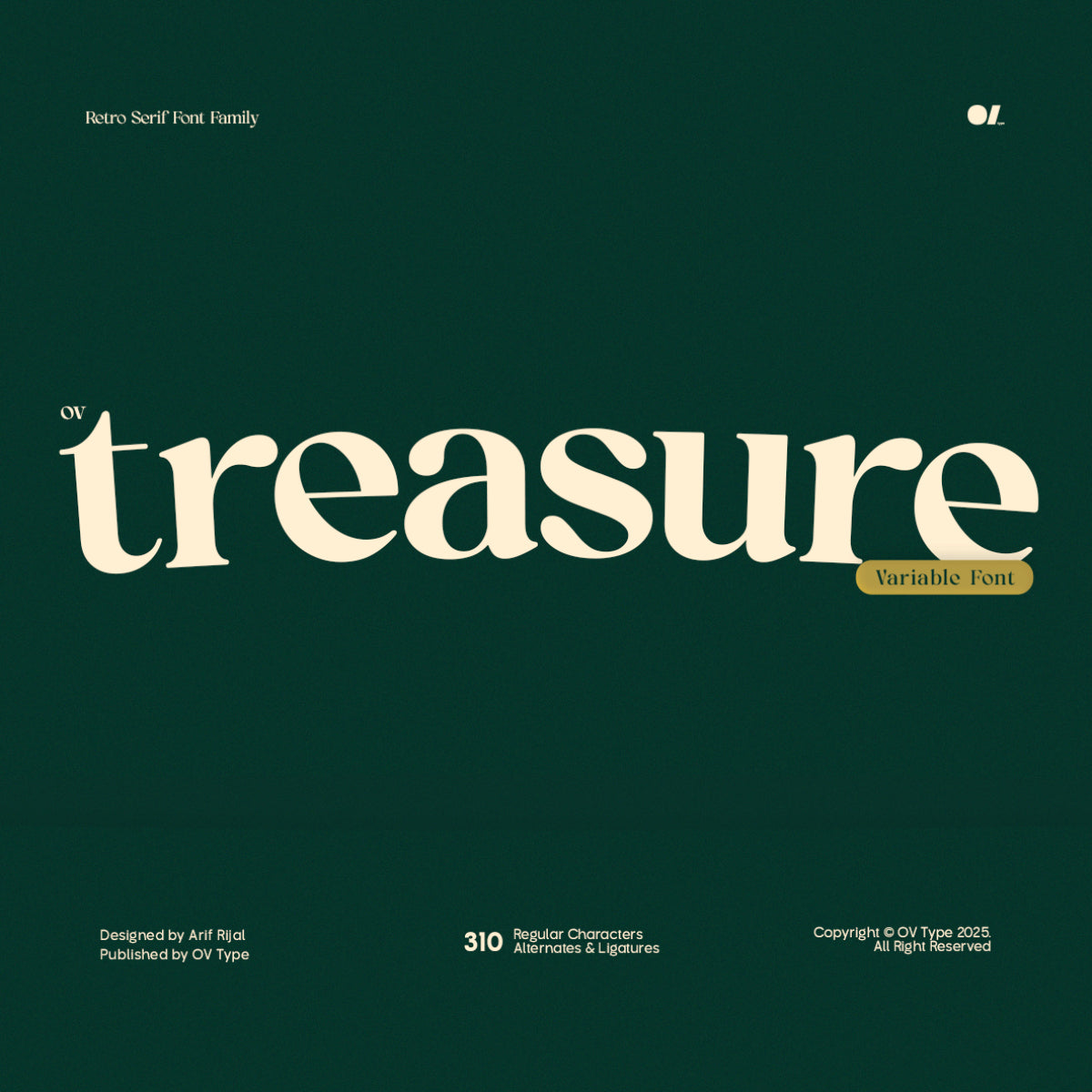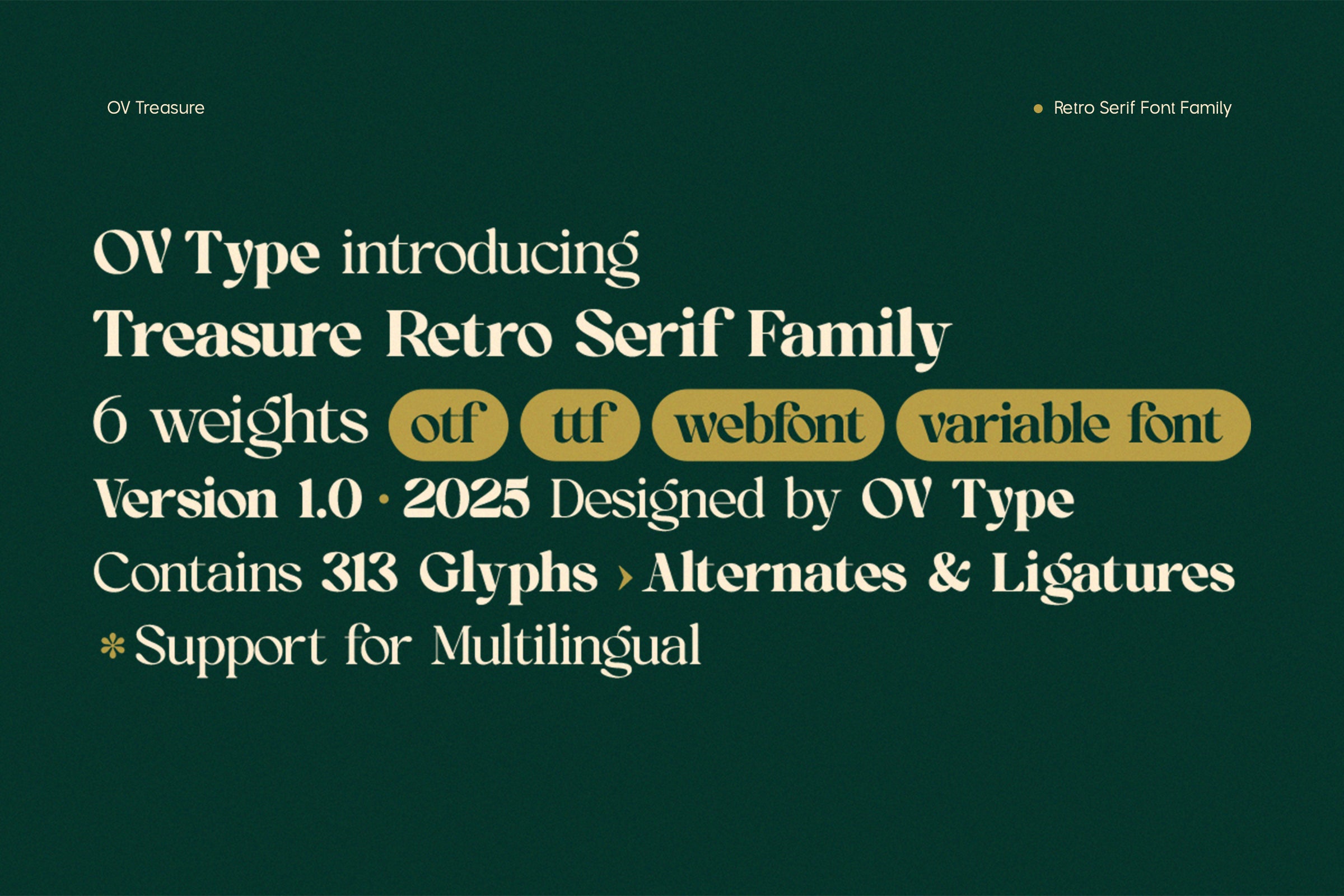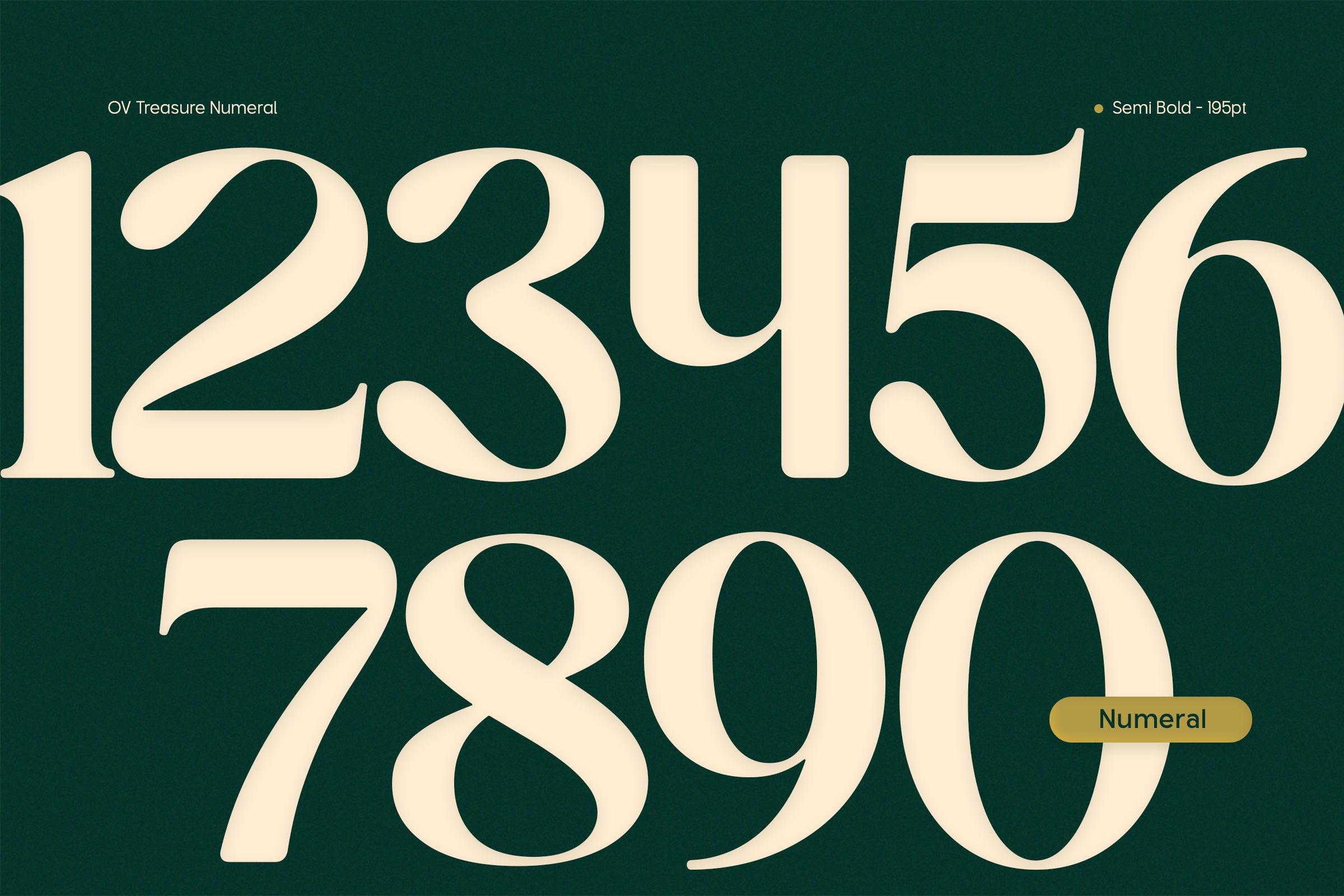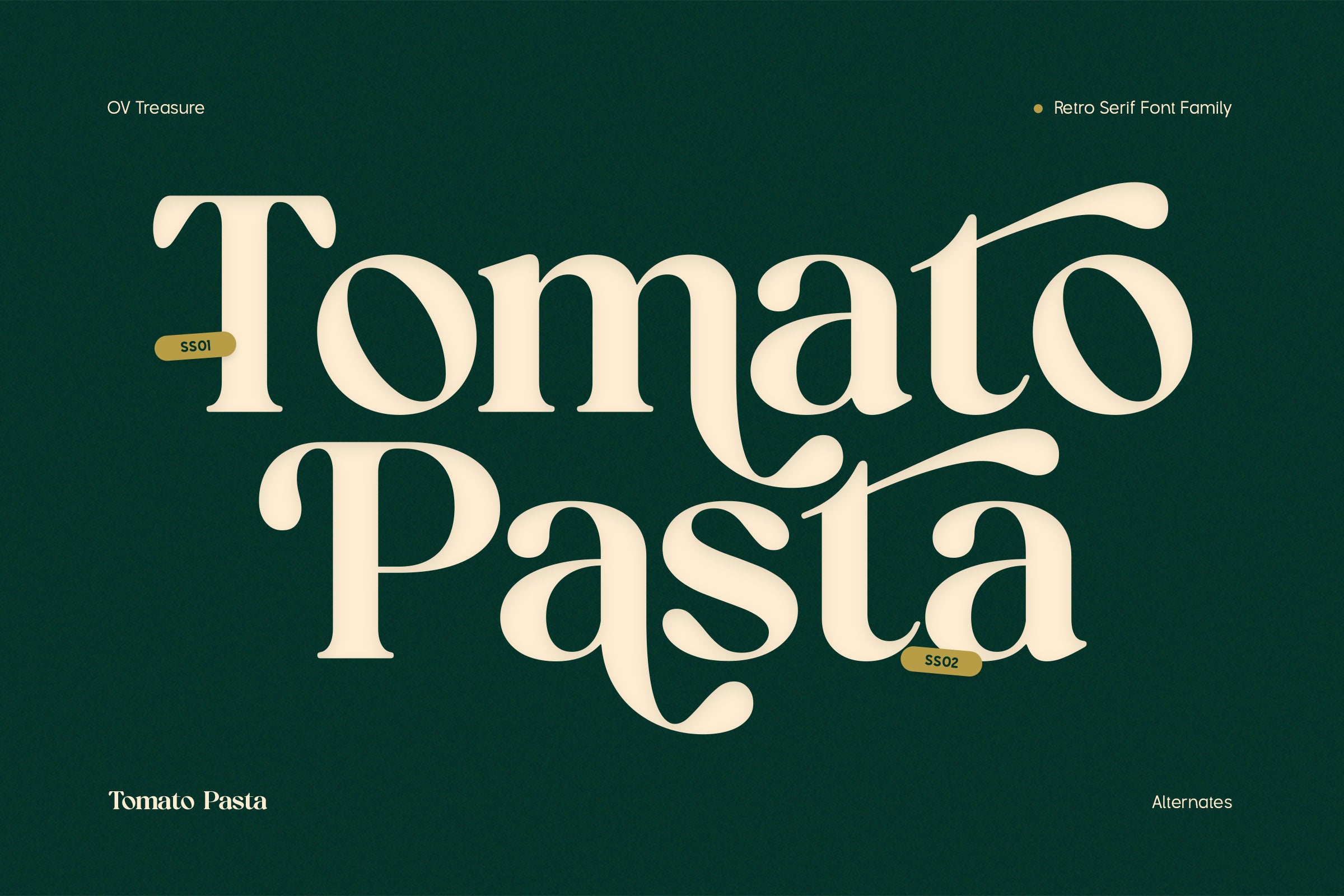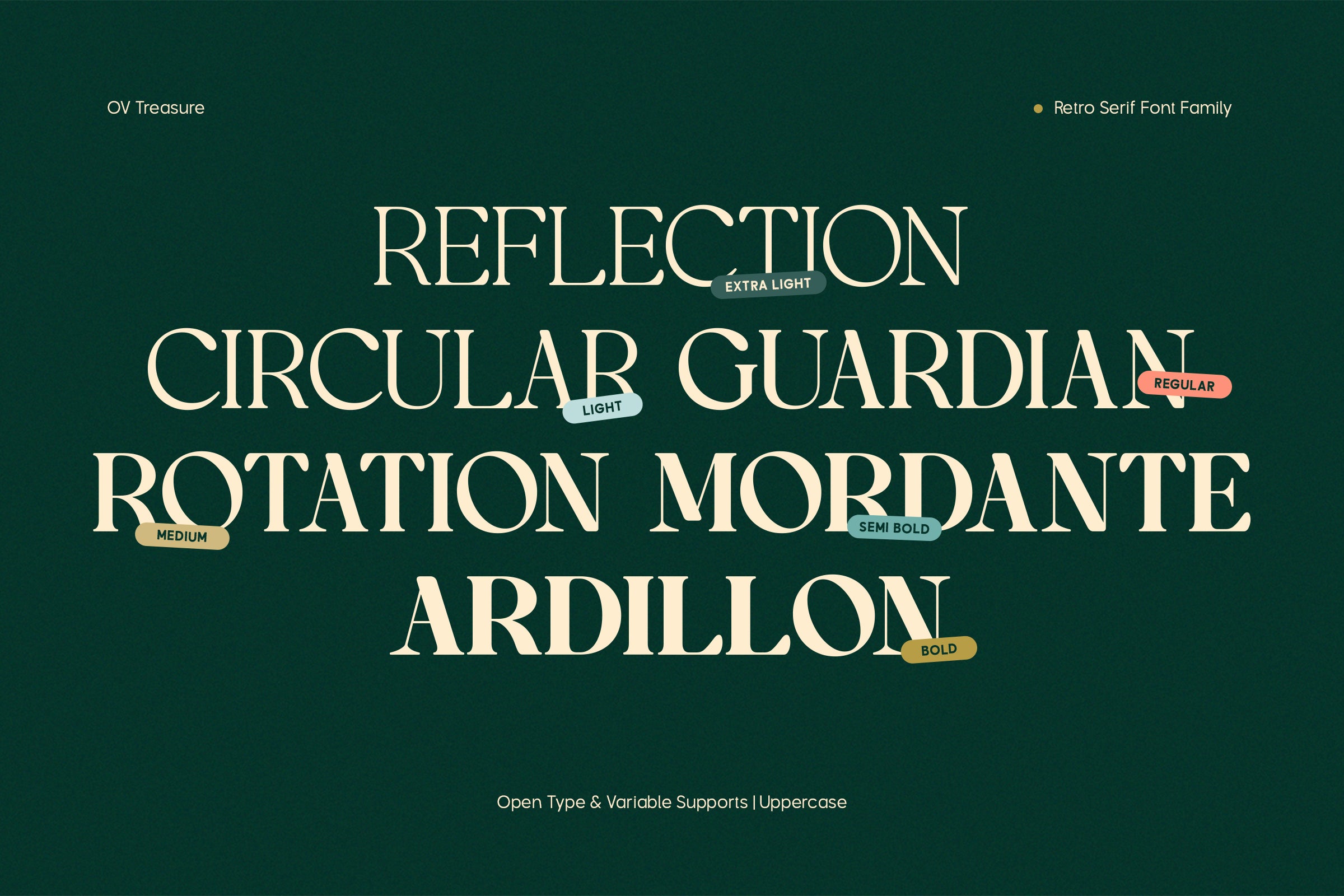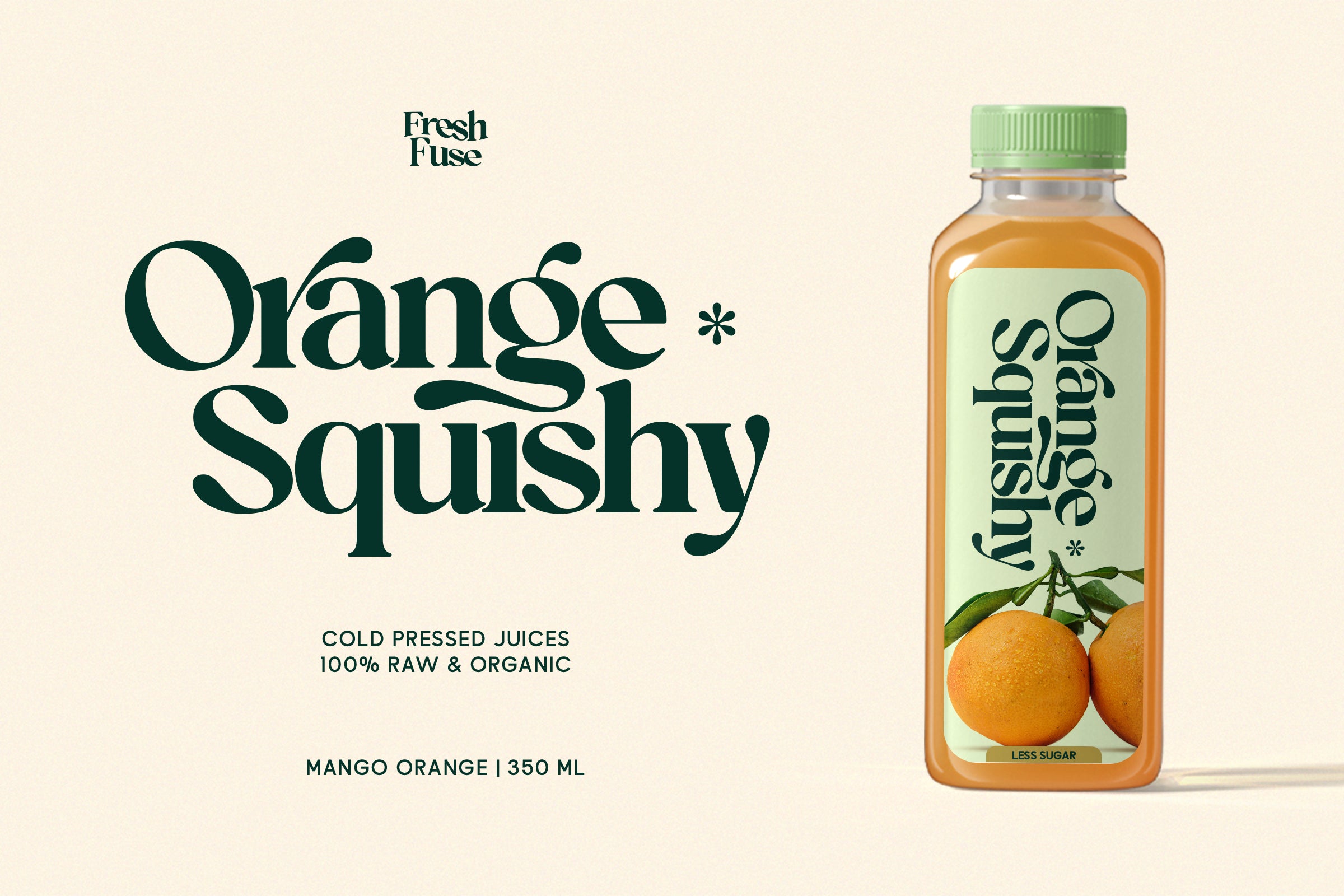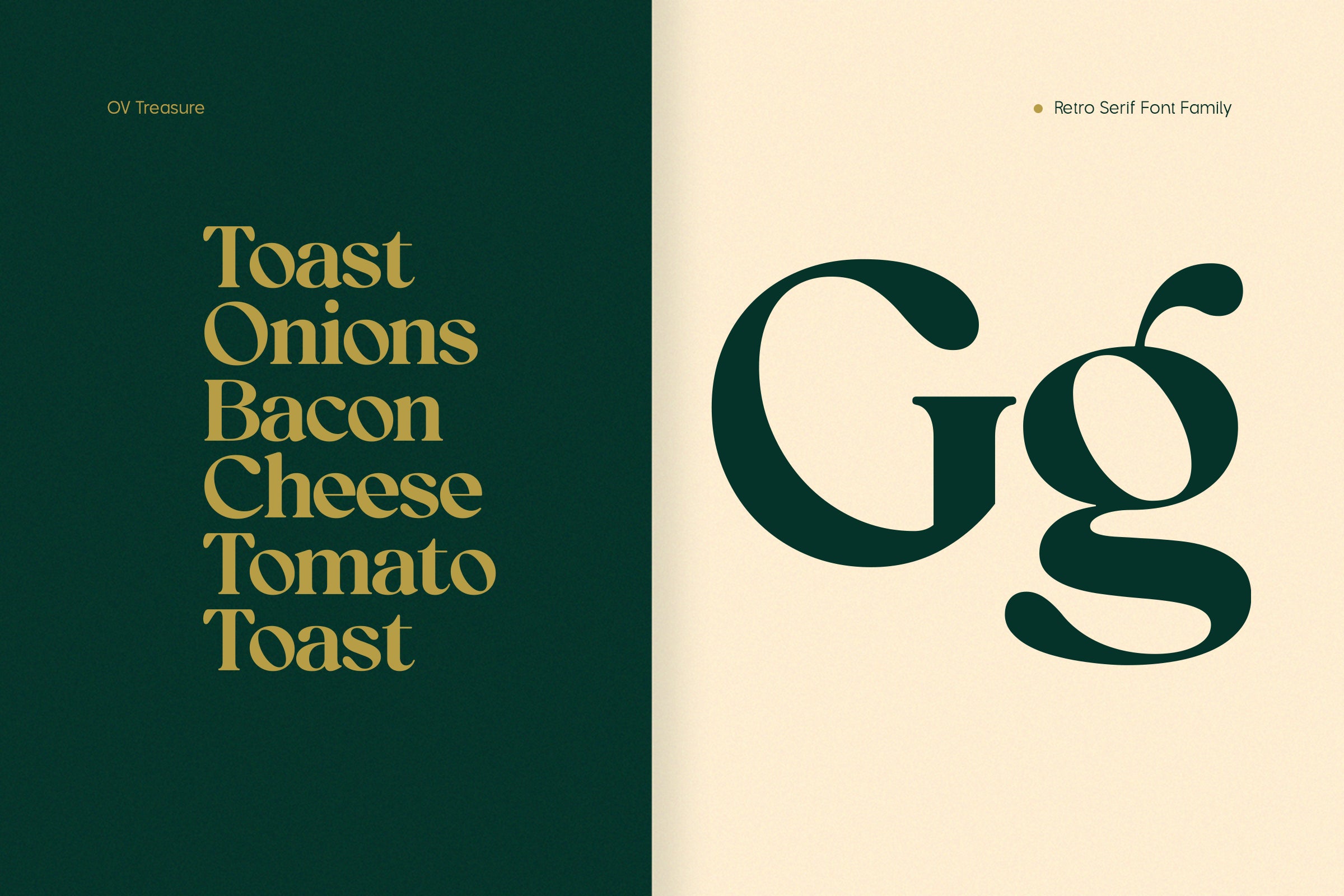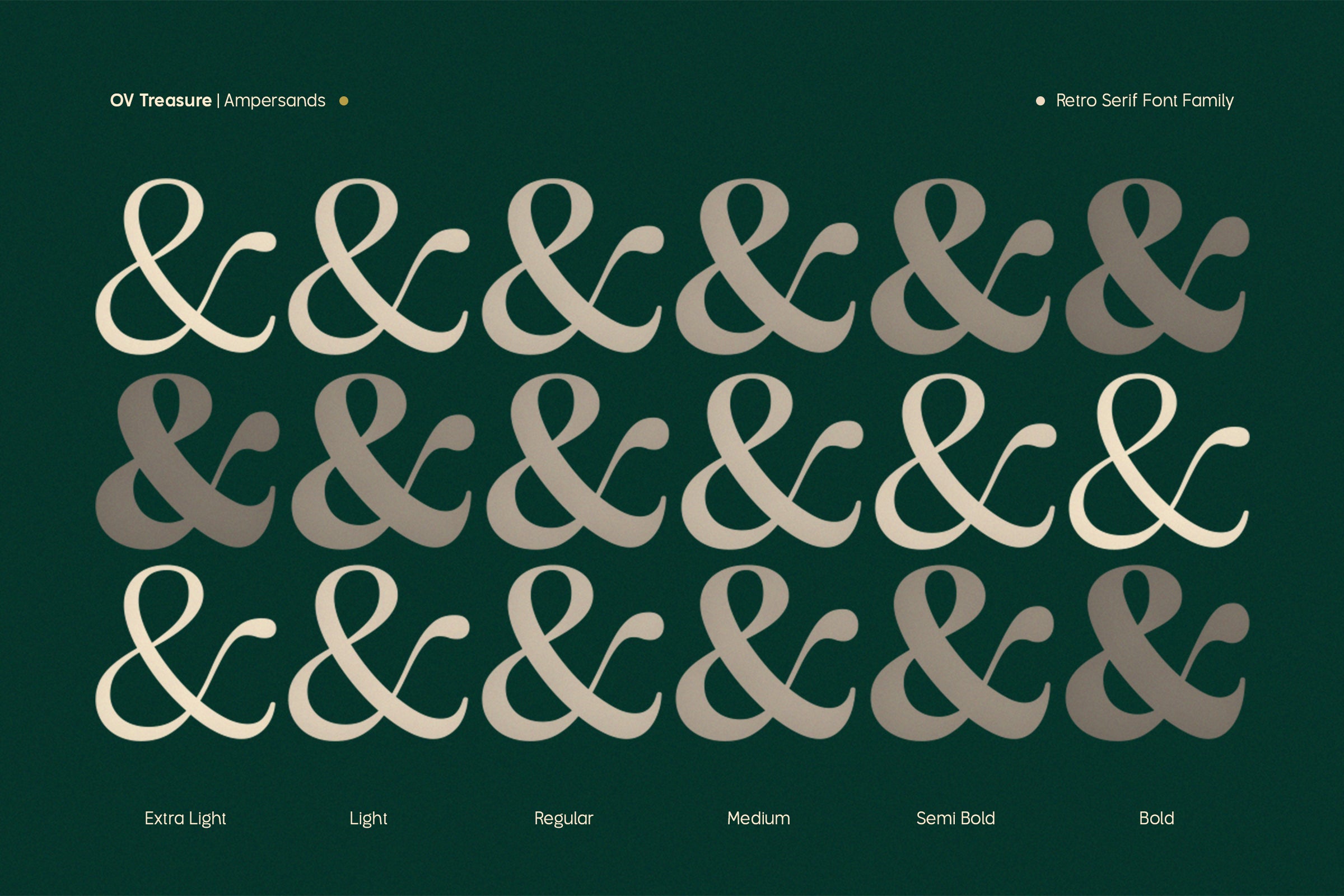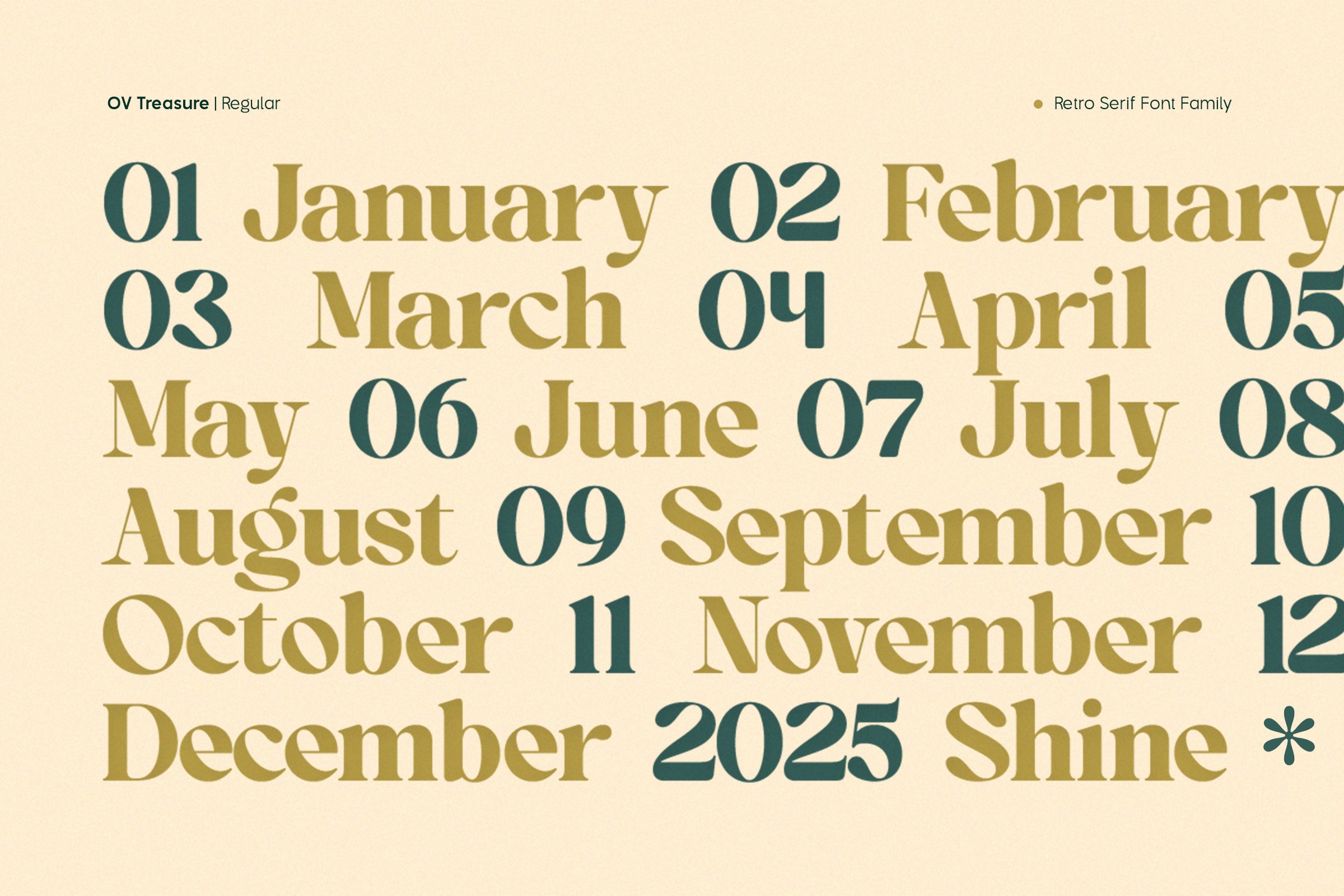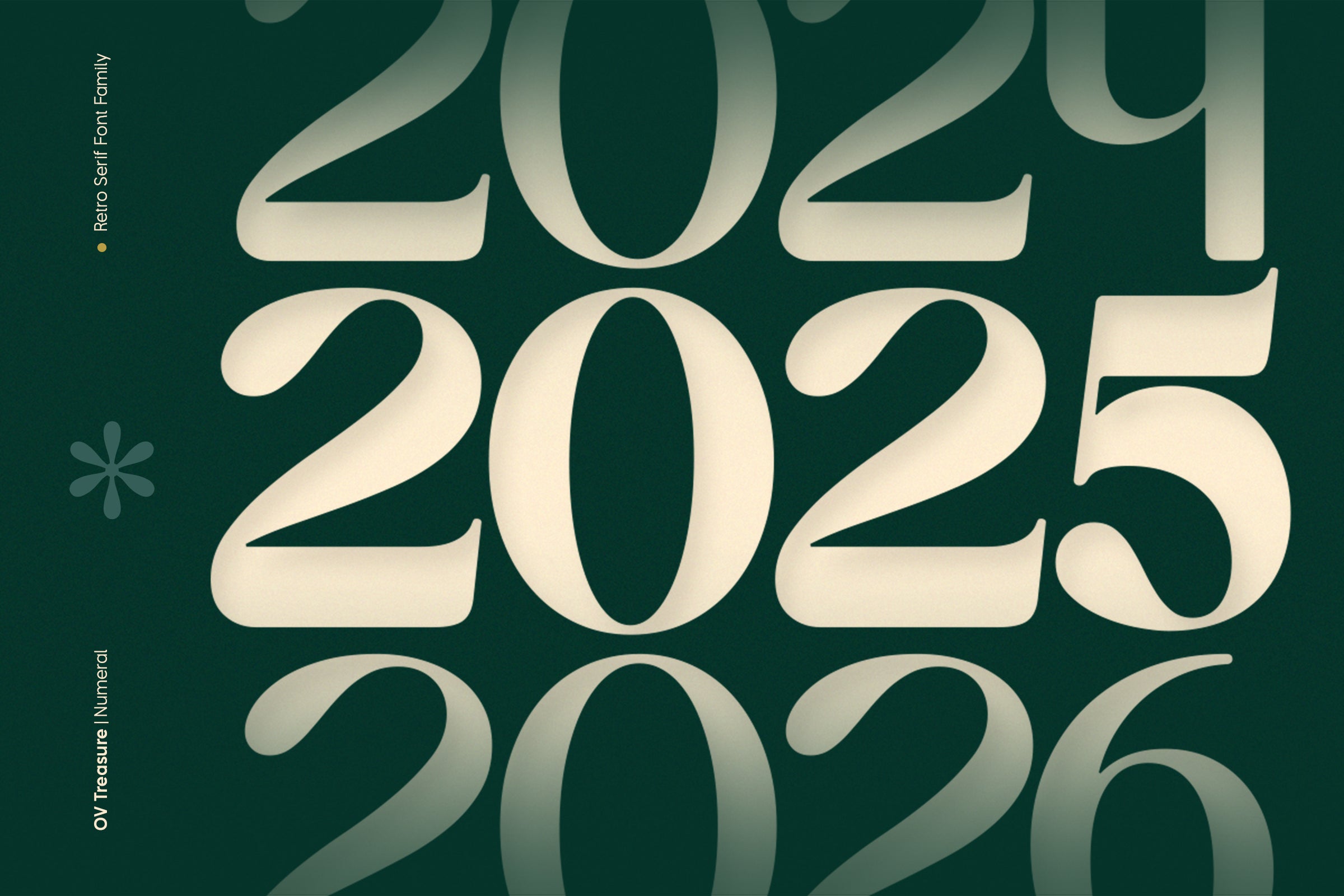
OV Treasure Retro Serif Font Family
OV Treasure is a retro serif font designed to bring the aesthetics of the vintage era to life with a modern twist. Featuring bold characters, curved letterforms, and unique detailing, this font strikes the perfect balance between nostalgia and elegance. It’s perfect for various design projects, including branding, posters, packaging, magazine headlines, and retro-themed websites.
What Makes It Unique:
Retro Aesthetics: A classic style inspired by mid-century designs and 70s vibes, delivering an authentic retro feel.
Distinctive Features: Curved serif detailing adds a touch of elegance and recognizability.
Versatile Styles: Available in multiple weights and styles (Extra Light, Light, Regular, Semi Bold, Bold) for diverse design combinations.
Design Concept:
This font was crafted for designers seeking a bold yet functional retro style. Inspired by vintage signage and classic editorial designs, OV Treasure blends historical value with contemporary design needs.
Font Pairing Suggestions:
OV Treasure pairs seamlessly with modern sans-serif fonts like OV Soge or clean monoline fonts to create visual harmony in branding projects.
OV Treasure is the ideal choice for designers looking to create retro-inspired projects with authenticity and style, perfect for branding, editorial layouts, and attention-grabbing promotional materials.
The OV Treasure Retro Serif Font Family features bold characters and curved letterforms, blending vintage aesthetics with modern design. Available in multiple weights and styles, it includes distinctive curved serif detailing for a unique and elegant appearance.